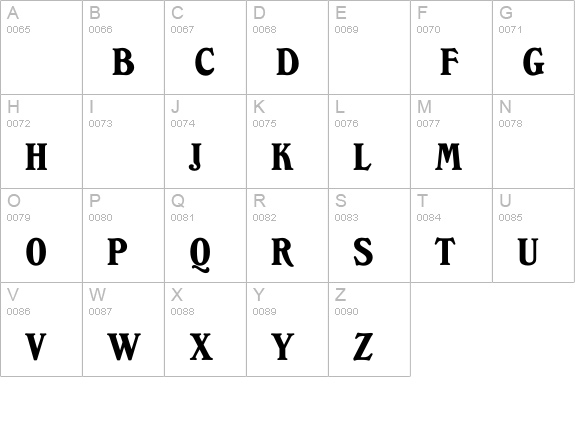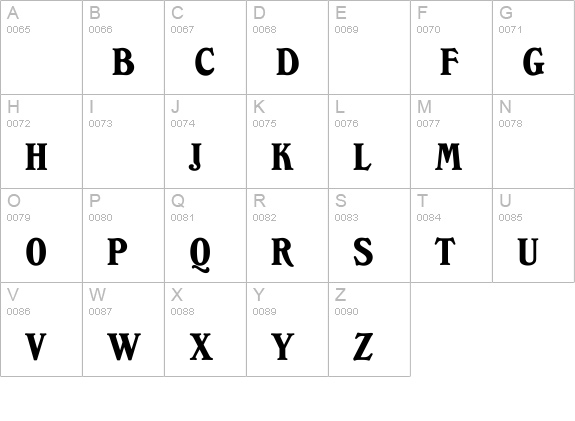
SycamoreBold Font Details
SycamoreBold is a versatile and stylish font that exudes modern elegance and sophistication. With its bold and eye-catching design, this font is perfect for making a statement in any project. Whether you're designing a logo, creating marketing materials, or crafting social media posts, SycamoreBold is sure to leave a lasting impression. What's even better is that SycamoreBold is available for free download at FontsMarket.com. This means you can easily access this stunning font without any cost, making it a valuable addition to your design toolkit. Don't miss out on the opportunity to elevate your projects with the striking beauty of SycamoreBold - download it for free today!